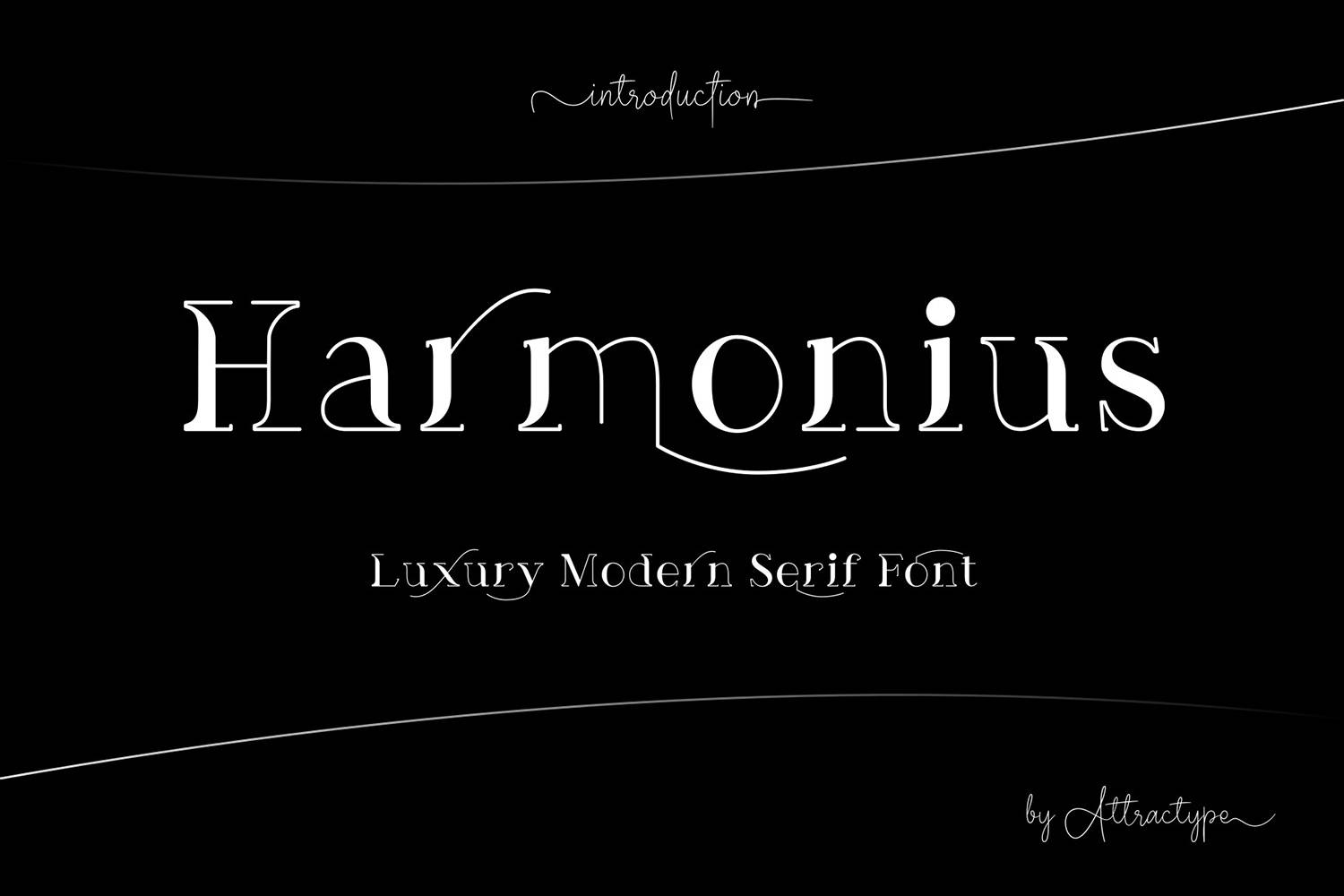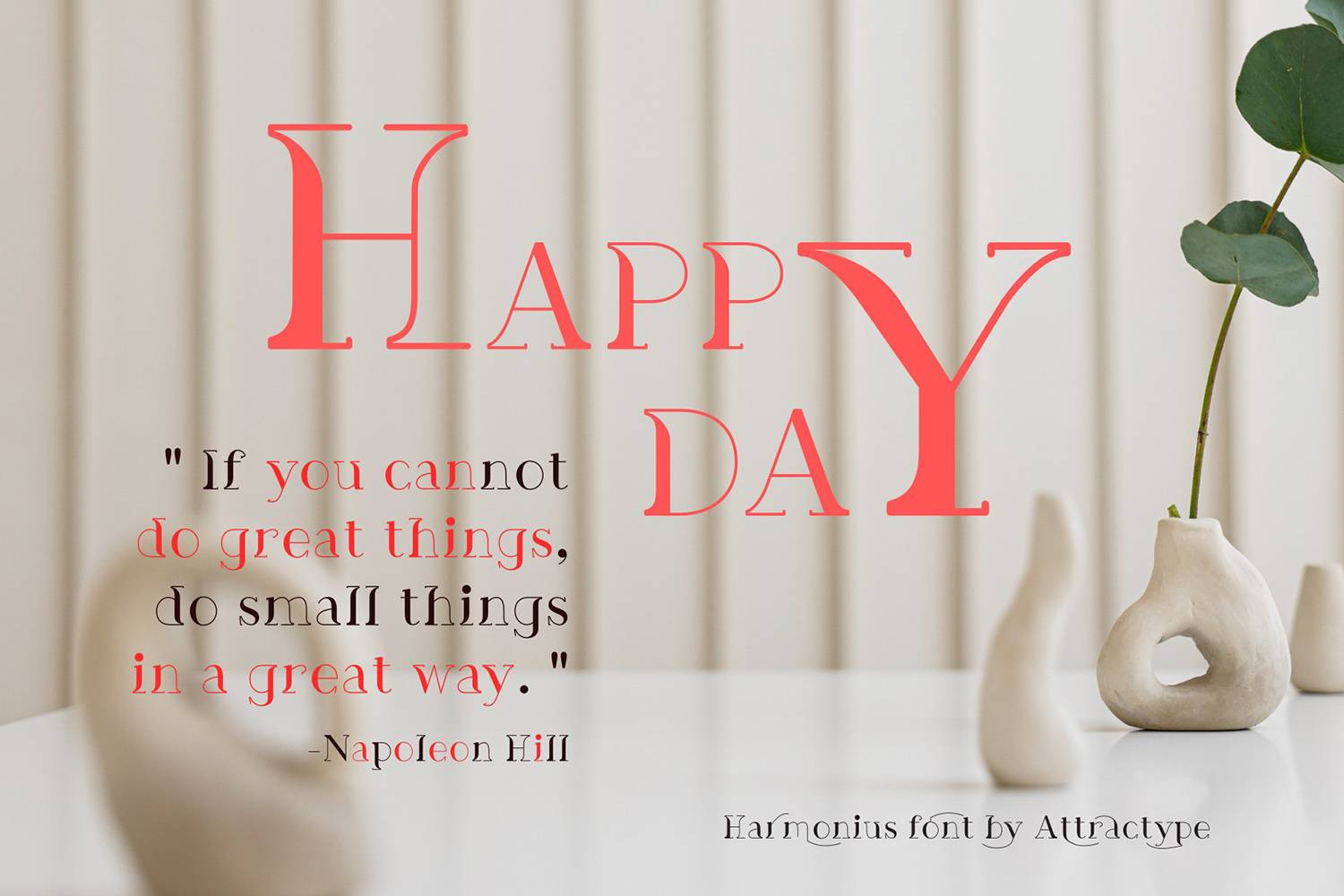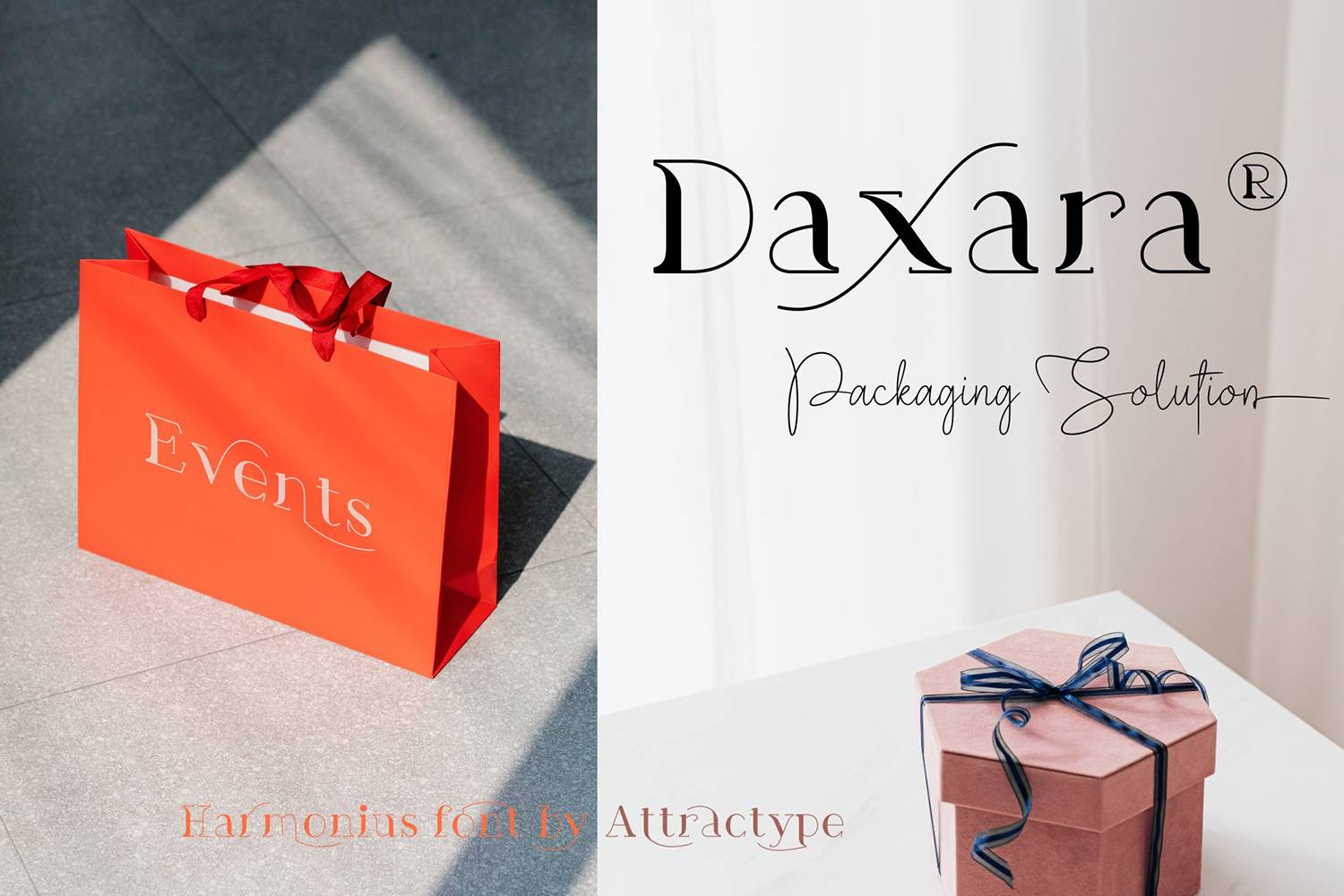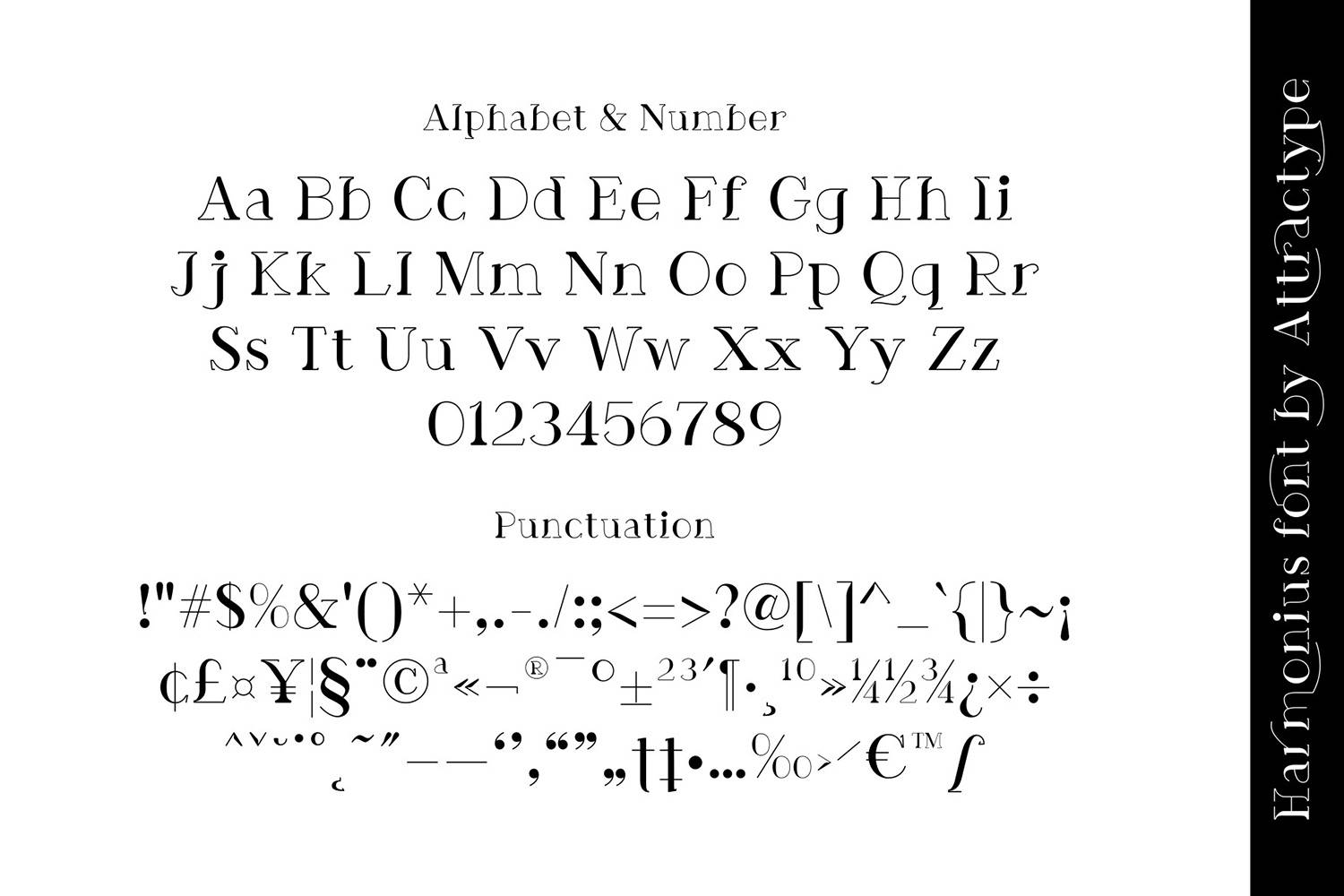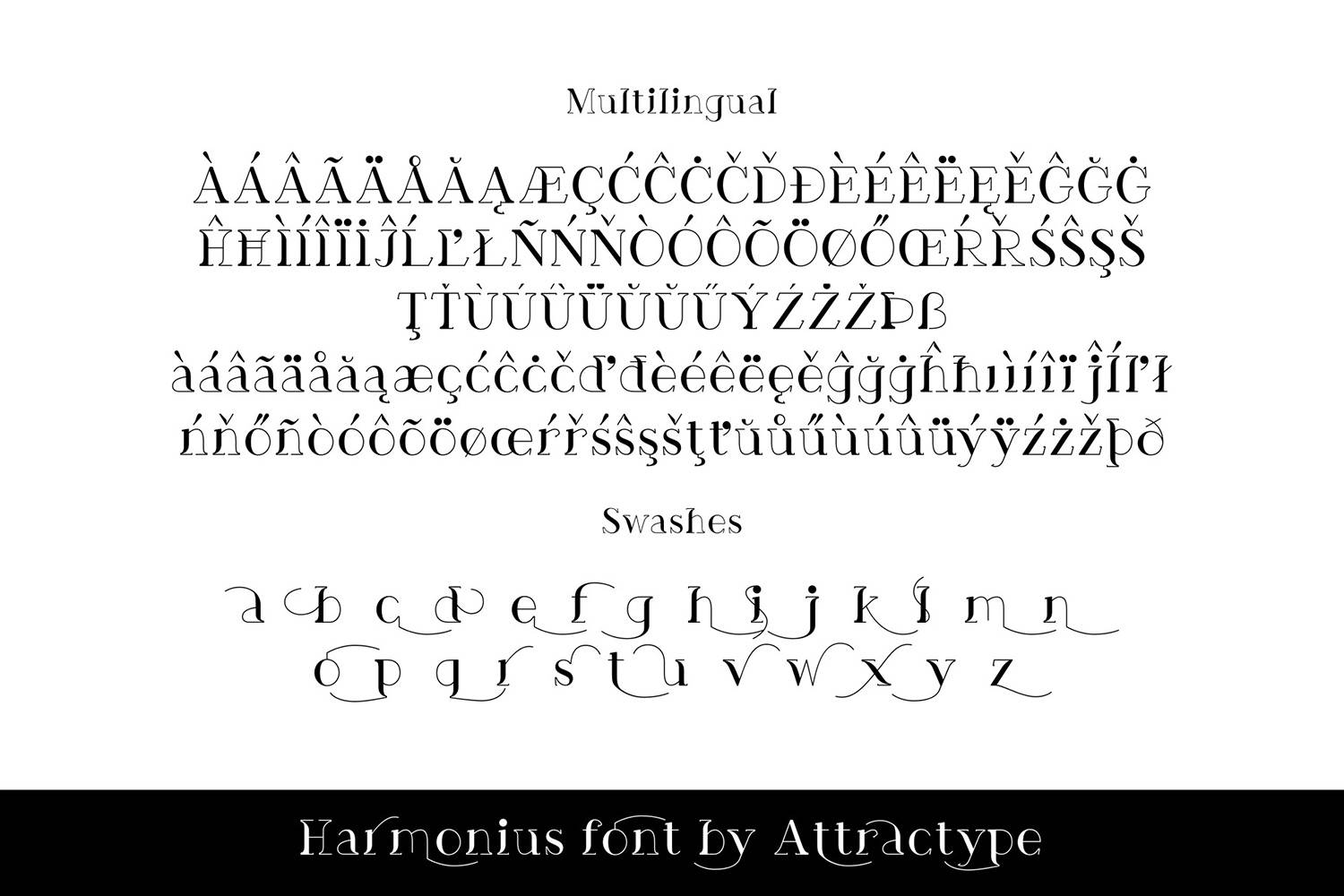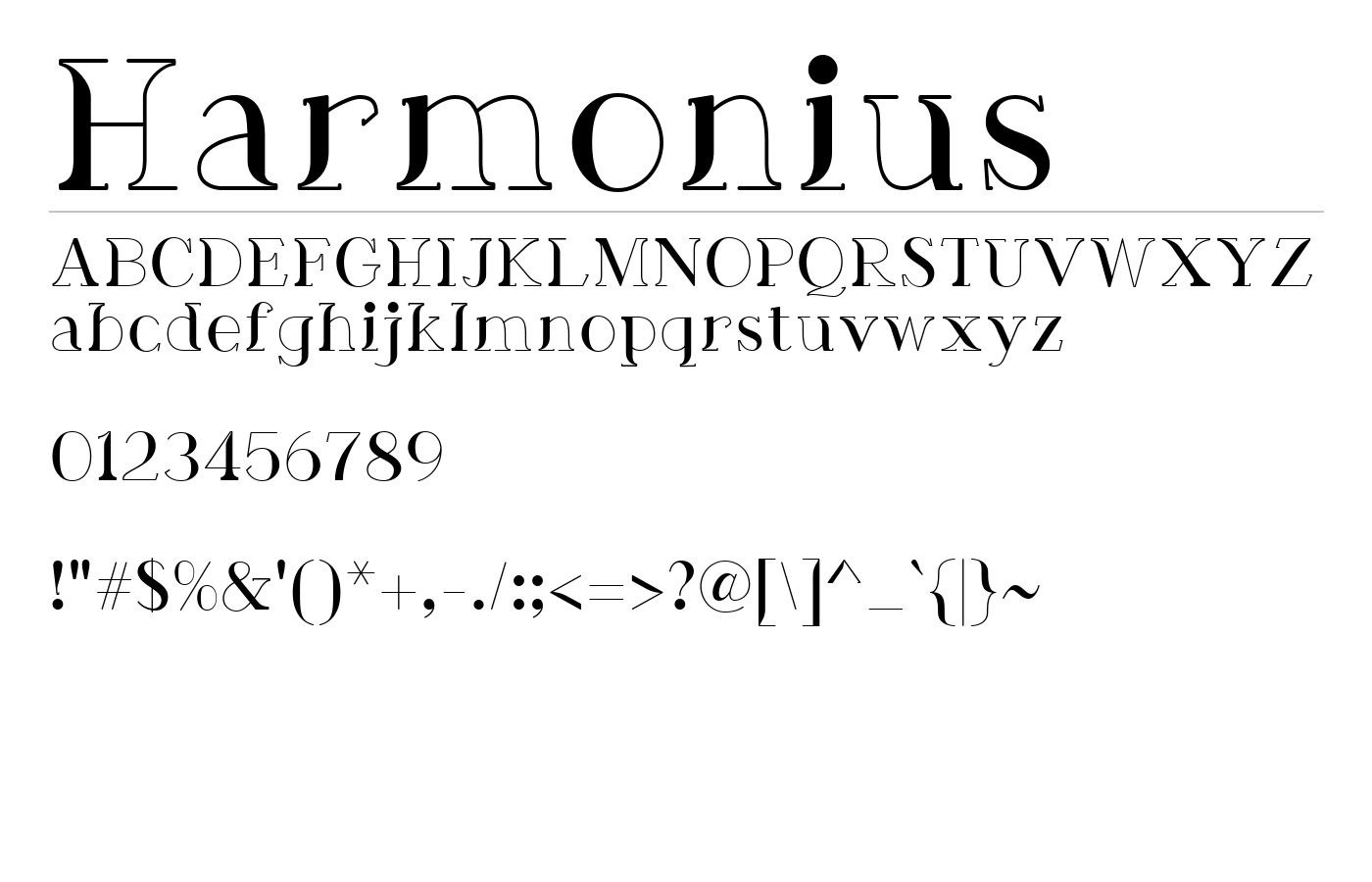
Harmonius is a sophisticated serif font with a modern flair, featuring high contrast between thick and thin strokes and elegant, slightly bracketed serifs. Its refined letterforms, including single-story ‘a’ and ‘g’ and distinctive detailing in characters like the Q tail and R leg, give it a stylish yet approachable personality. Ideal for editorial design, luxury branding, and upscale packaging, Harmonius combines readability with a graceful, contemporary elegance perfect for making a lasting impression.
Harmonius Font